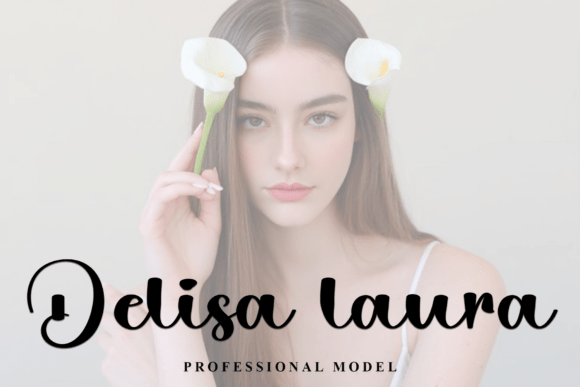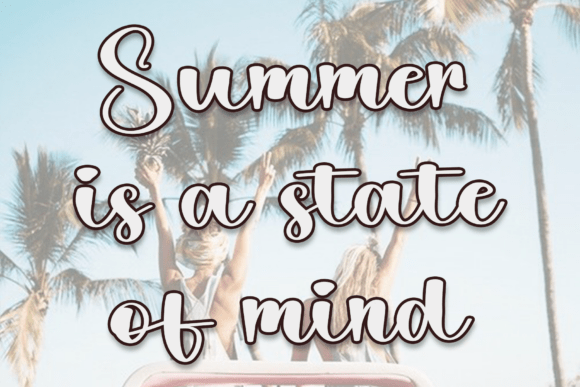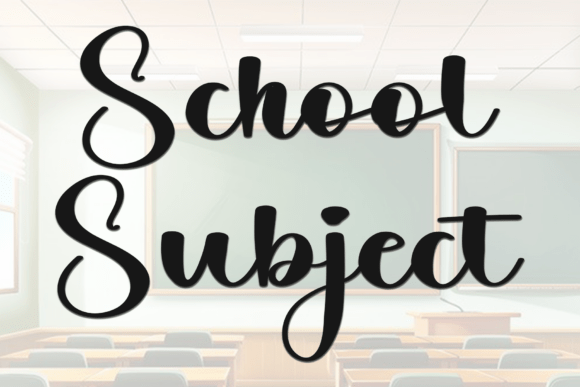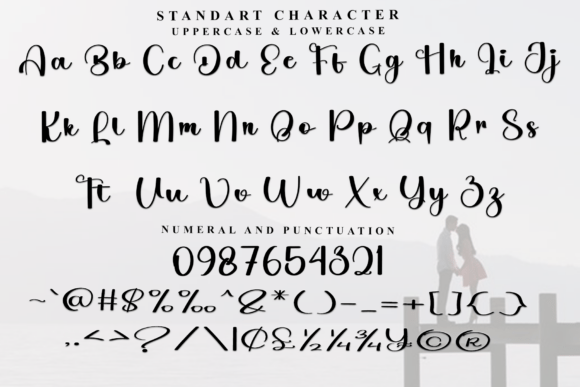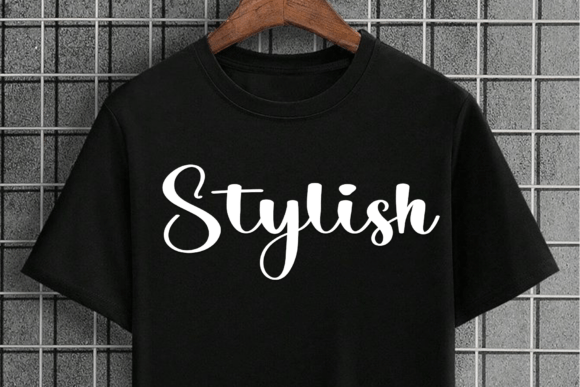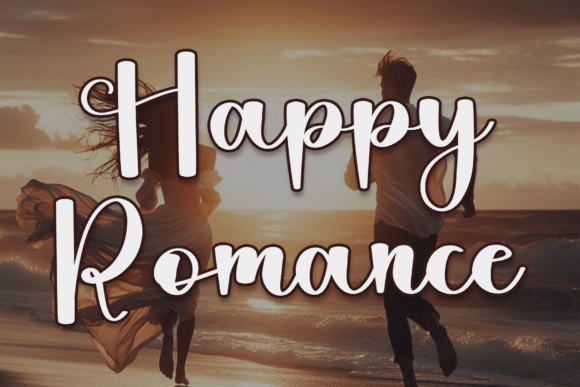
Deddy Autography Font: Elevate Your Designs with Elegance and Flair
In the world of typography, a well-chosen font can make all the difference in transforming a design from ordinary to extraordinary. For designers and crafters seeking a touch of elegance and sophistication, Deddy Autography Font is an exceptional choice. This delicate, elegant, and flowing handwritten font is designed to bring a sense of refinement and poise to a wide range of creative projects.
The Characteristics of Deddy Autography Font
Deddy Autography Font boasts beautiful and well-balanced characters that exude a sense of harmony and proportion. Its flowing lines and curves create a sense of movement and fluidity, making it perfect for designs that require a touch of dynamism. The font’s delicate nature ensures that it remains legible even at smaller sizes, making it versatile for use in various applications, from branding and advertising to packaging and digital media.
Why Deddy Autography Font Stands Out
So, what sets Deddy Autography Font apart from other fonts in its category? Here are a few reasons why it’s a standout choice for designers and crafters:
- Elegance and Sophistication: Deddy Autography Font embodies a sense of refinement and luxury, making it perfect for high-end branding, fashion, and lifestyle designs.
- Versatility: Its well-balanced characters and flowing lines ensure that it pairs well with a wide range of design styles, from modern and minimalist to vintage and ornate.
- Legibility: Despite its delicate nature, Deddy Autography Font remains clear and legible, even at smaller sizes, making it suitable for use in body text and captions.
How to Use Deddy Autography Font in Your Designs
Adding Deddy Autography Font to your design toolkit can elevate your creative projects in numerous ways. Here are a few ideas to get you started:
- Branding and Logo Design: Use Deddy Autography Font to create a sophisticated and memorable brand identity that exudes elegance and refinement.
- Stationery and Packaging: Add a touch of luxury to your stationery, packaging, and product labels with Deddy Autography Font.
- Digital Media: Use Deddy Autography Font in your digital designs, such as social media graphics, blog headers, and website titles, to create a cohesive and polished look.
Tips for Pairing Deddy Autography Font with Other Fonts
Pairing Deddy Autography Font with other fonts can create a visually appealing and harmonious design. Here are some tips for pairing it with other fonts:
- Contrast with Bold Fonts: Pair Deddy Autography Font with bold, sans-serif fonts to create a striking contrast and add visual interest to your design.
- Match with Script Fonts: Combine Deddy Autography Font with other script fonts to create a cohesive and elegant look.
- Use with Serif Fonts: Pair Deddy Autography Font with serif fonts to add a touch of sophistication and refinement to your design.
Deddy Autography Font is a versatile and elegant handwritten font that can elevate a wide range of creative projects. Its delicate, flowing lines and well-balanced characters make it perfect for designs that require a touch of sophistication and refinement. Whether you’re a designer, crafter, or DIY enthusiast, Deddy Autography Font is an excellent addition to your design toolkit.